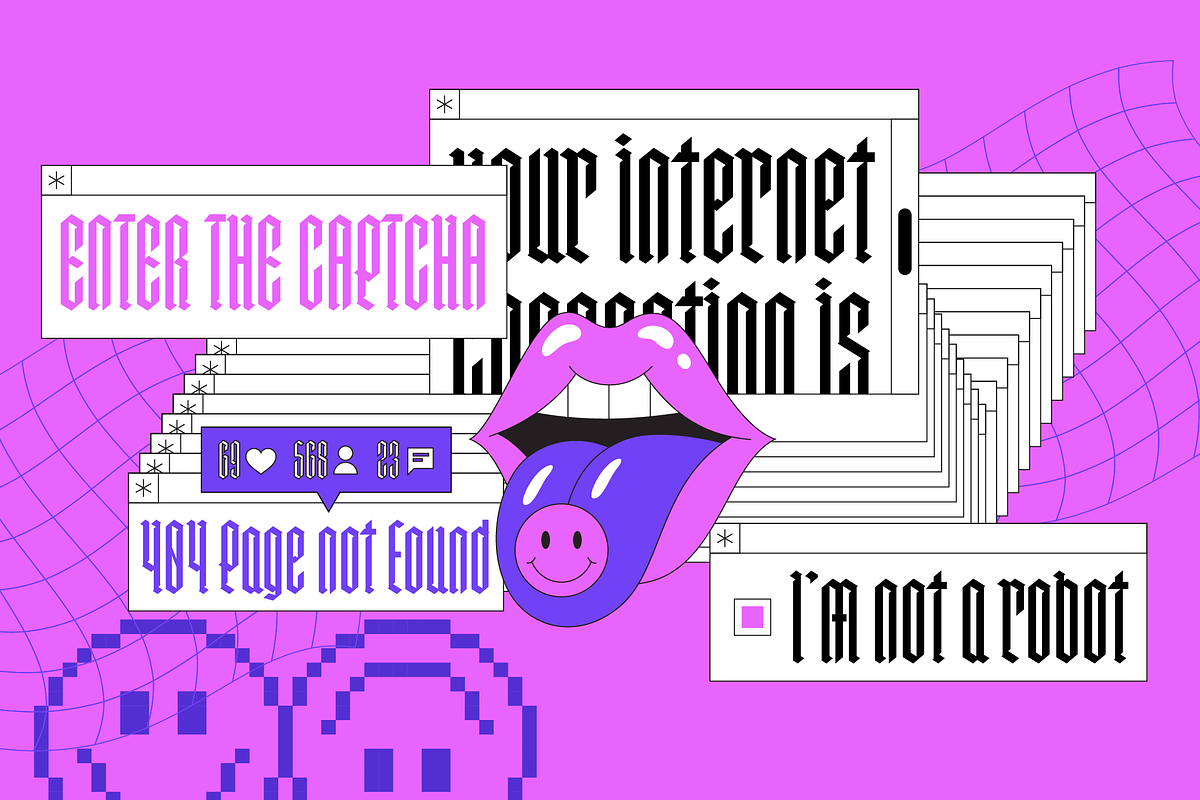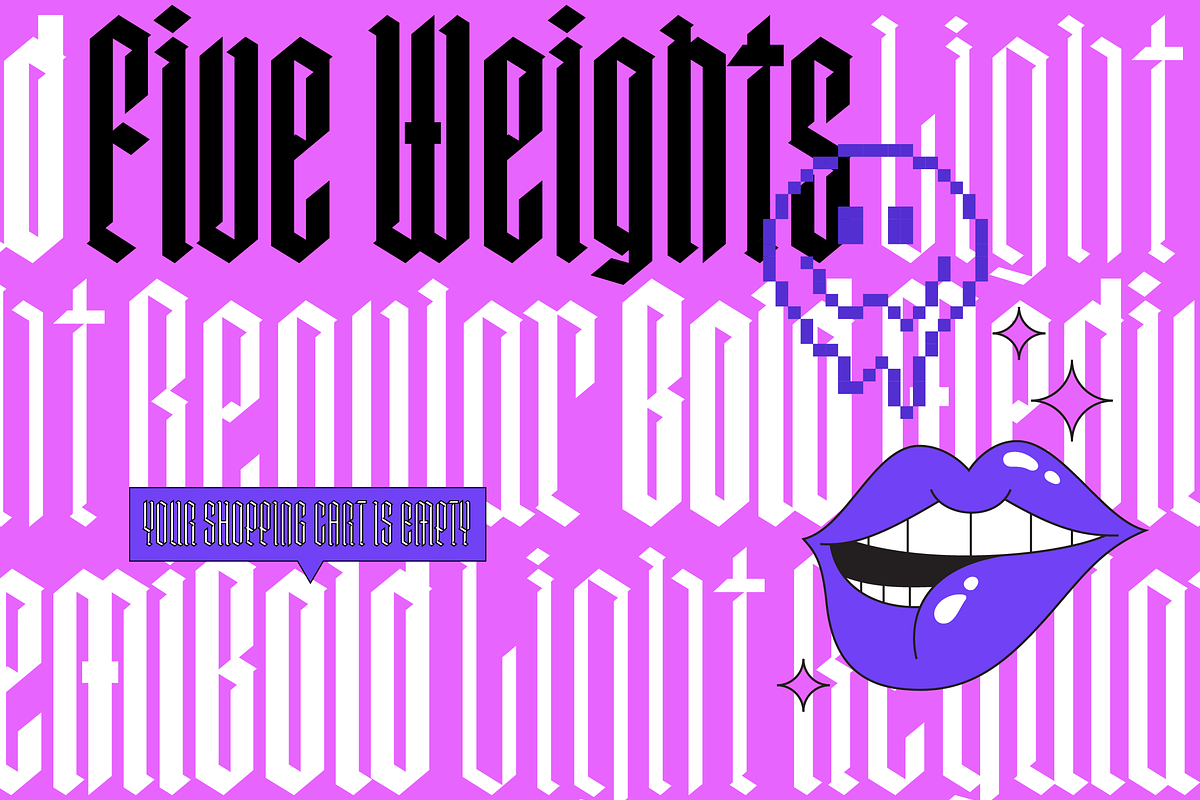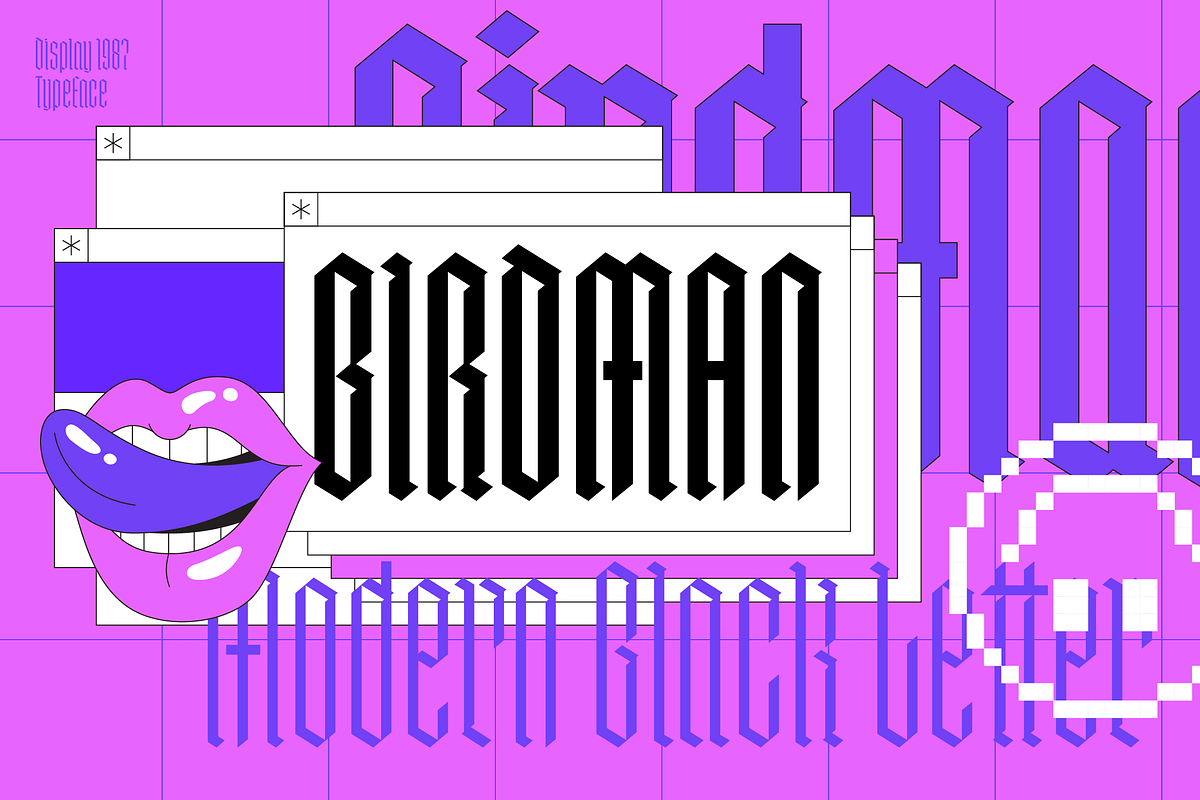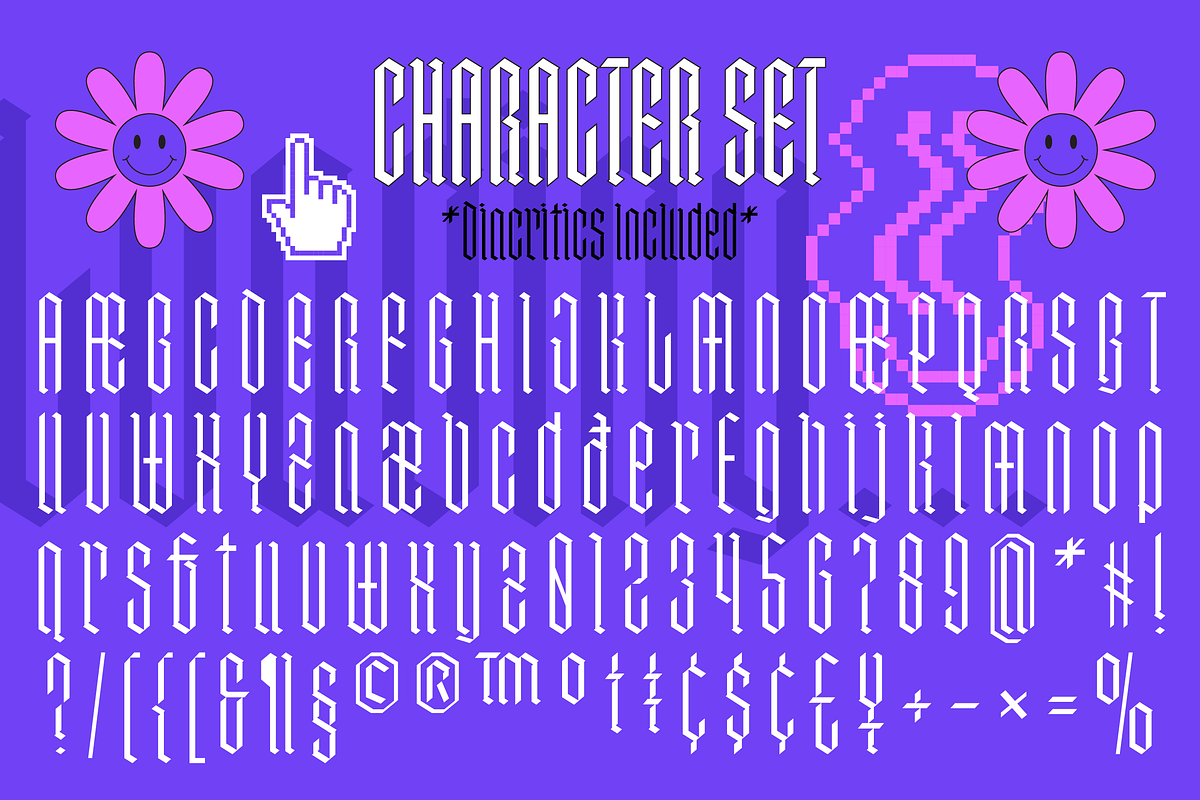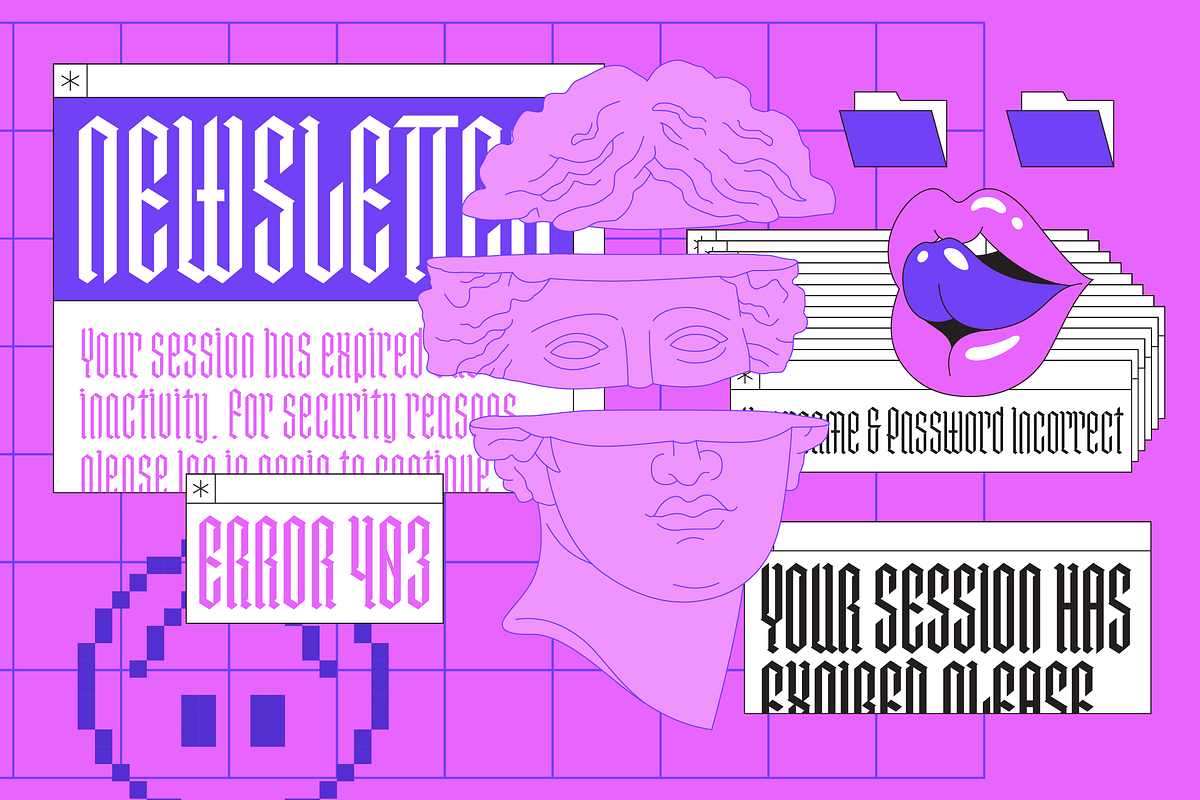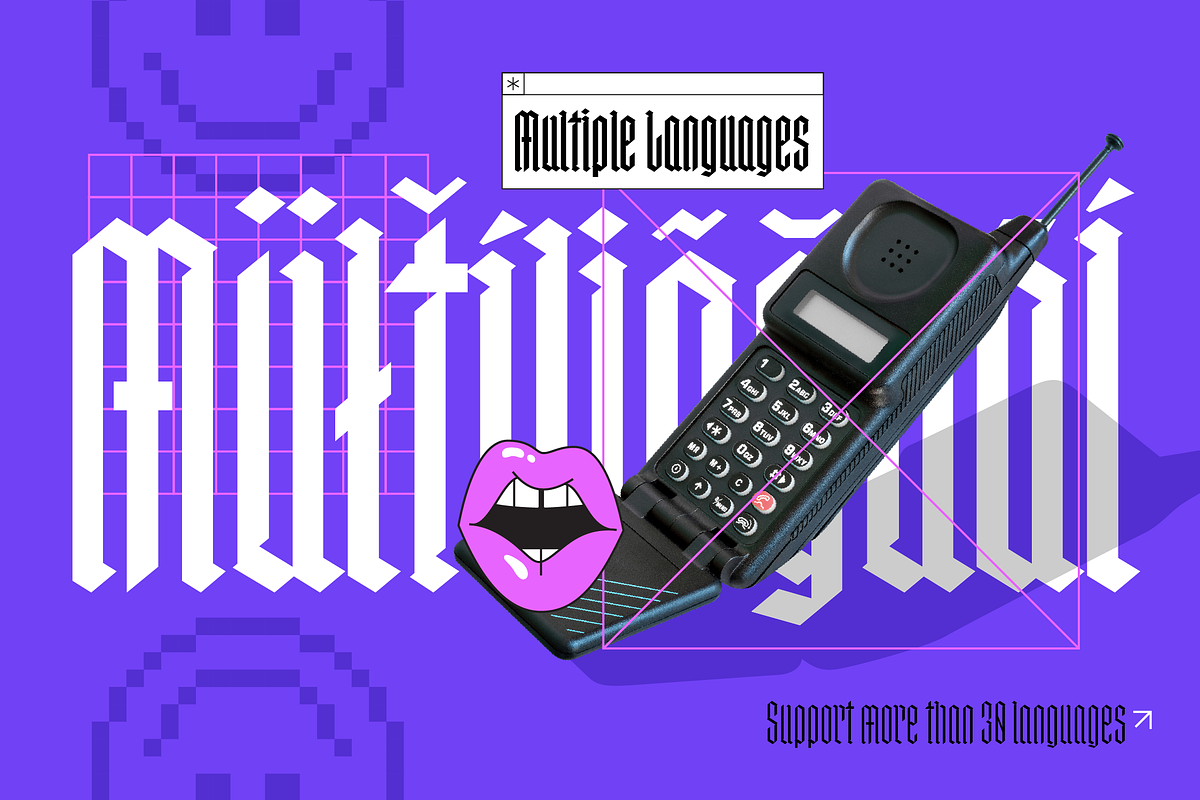
Birdman Modern Black Letter
Birdman is a modern blackletter font that merges rebellion and chicano style, elevating them to a new dimension of minimalism and edginess. With its trendy and condensed design, this geometric typeface captivates instantly.
Its versatility makes it the perfect companion for impactful headlines, high-flying logos, and groundbreaking advertisements. Birdman challenges typographic conventions with its boldness, attracting all eyes with its simple elegance.
With Birdman by your side, words take flight, releasing their rebellious and contemporary essence. Each stroke is a cry of originality, and each letter tells a tale of modernity and authenticity. Feel how this font elevates your designs, soaring toward new typographic horizons.